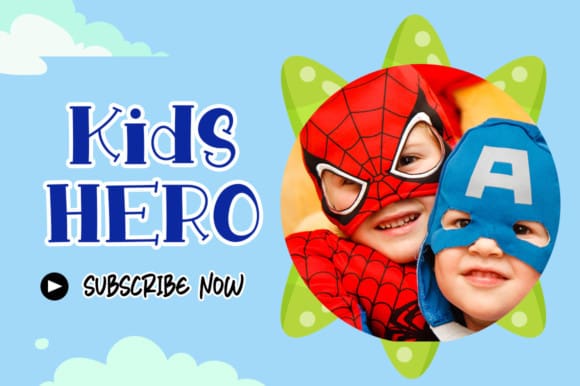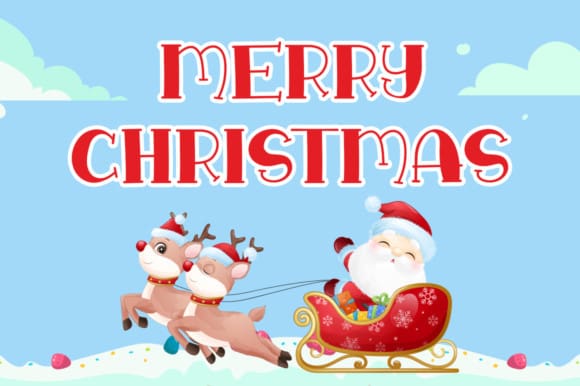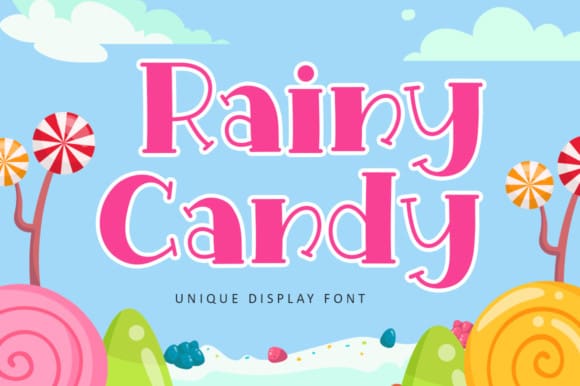
Rainy Candy Font
Rainy Candy Font is a jolly, fun and quirky display font. Whether you use it for cartoon related designs, children games or just any creation that requires a lovely touch, this font will be an amazing choice.